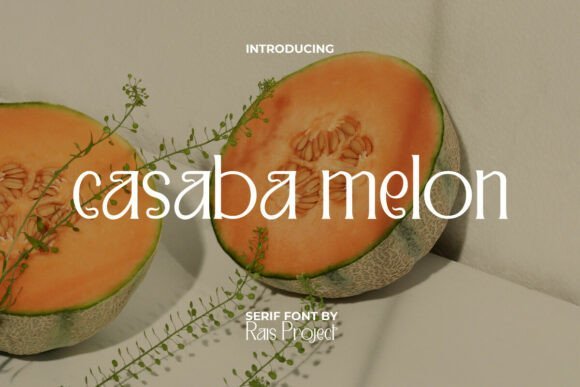
When Elegance Meets Minimalism: Unveiling the Casaba Melon Font
Have you ever stumbled upon a font that perfectly captures the essence of your design vision? That’s exactly what happened when I discovered the Casaba Melon Font. Its sleek, modern lines and sophisticated curves instantly transported me to a world of high-end fashion and luxury brands. As a designer, I was immediately drawn to its unique ability to elevate simple typography into a work of art.
Casaba Melon Font is a stunning modern serif that exudes elegance and refinement. Its tall, slender x-height and dramatically elongated terminals and serifs make it a standout choice for designers seeking to convey premium quality and refined taste. Whether you’re working on a luxury goods campaign or creating sophisticated wedding stationery, this font is sure to make your designs stand out.
For designers, Casaba Melon Font is a valuable addition to any toolkit. Its clean construction and fluid curves make it highly suitable for minimalist logos and stylish headlines where clarity meets exclusive design.
Casaba Melon Font Key Features
- Unique Characteristics: This font features a unique blend of modern and vintage elements, with intricate details and subtle texture, giving it a distinctive and eye-catching appearance.
Casaba Melon Font Review
Overall, I’m quite impressed with the Casaba Melon font. ✨ It has a unique and modern look that’s perfect for adding a touch of whimsy to your designs. The font’s organic, hand-drawn feel makes it great for branding and packaging design.
Some of the things that I like about Casaba Melon include:
- Its versatility: Casaba Melon can be used for both digital and print design, making it a great choice for a wide range of projects.
- Its uniqueness: The font’s quirky, hand-drawn style makes it stand out from more traditional fonts.
- Its legibility: Despite its ornate feel, Casaba Melon is surprisingly easy to read, even at smaller font sizes.
- Its limited character set: While Casaba Melon has a decent number of glyphs, it’s not a full Unicode font, which may limit its use for languages other than English.
- Its limited font weights: While Casaba Melon comes in a few different weights, it’s not as extensive as some other fonts on the market.
Overall, I think Casaba Melon is a great choice for designers who want to add a touch of personality to their designs. While it may not be the best choice for every project, it’s a great option for branding, packaging, and other design projects where a unique, modern feel is desired.
The Casaba Melon font is suitable for:
- Summer-themed designs
- Whimsical and playful projects
Alternative Font Options to Casaba Melon Font
Great Vibes is a modern script font perfect for adding a touch of elegance and sophistication to your designs. It’s ideal for headings, titles, and quotes. Great Vibes is more refined and elegant compared to Casaba Melon, which has a more playful and whimsical feel.
Pacifico is a beautiful, cursive font that works well for titles, headings, and body text. It’s perfect for designs that need a touch of relaxation and serenity. Compared to Casaba Melon, Pacifico is more laid-back and has a softer feel.